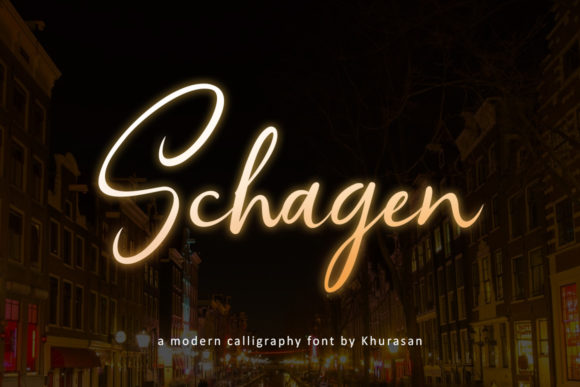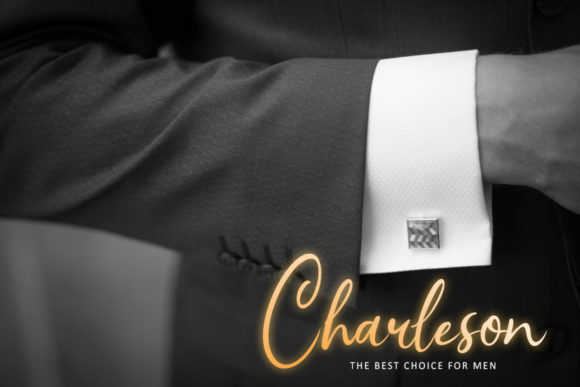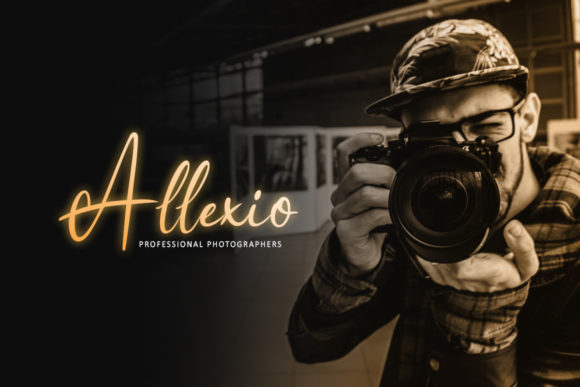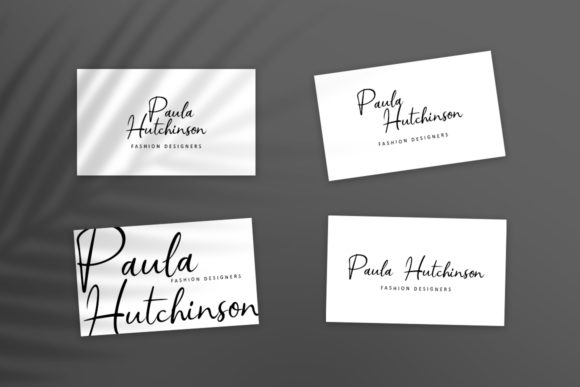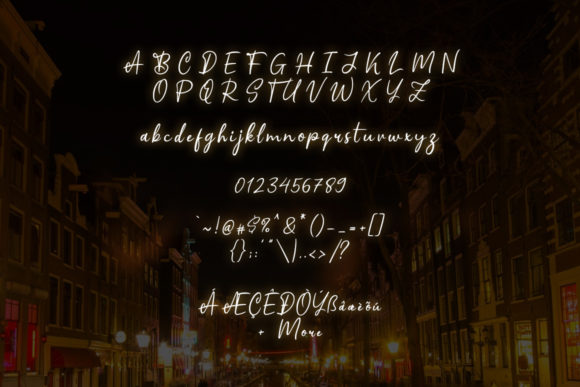
Schagen Font
About Schagen Font
Schagen is a modern homage to classic calligraphy that feels unique and powerful. It will add an authentic vibe to your next design project!